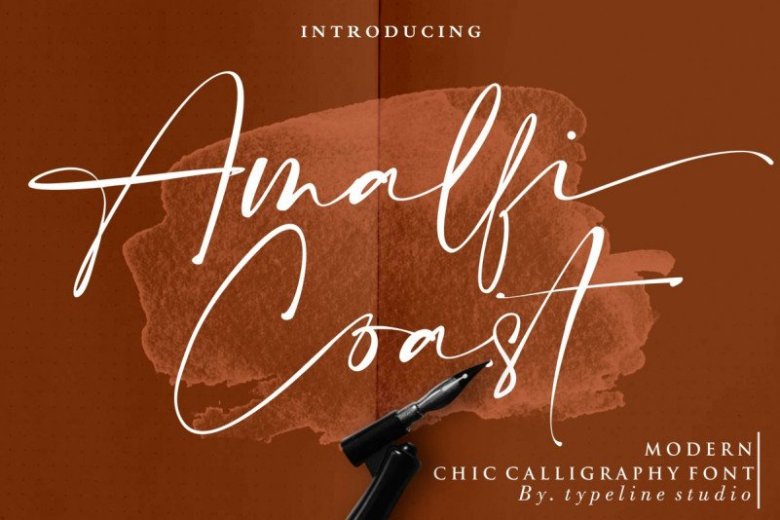
Amalfi Coast Script Font
Hello.. Welcome again! Introducing Amalfi Coast Font! This is sweet calligraphy font, including Regular. Can used for various purposes. This collection of scripts is perfect for personal branding. It is designed and shared by typeline studio. It’s a modern chic Calligraphy font with magical pressure. i hope this font perfect for creating signature logos and watermarks for photography studio or wedding invitation,best for initial or branding logo signature.